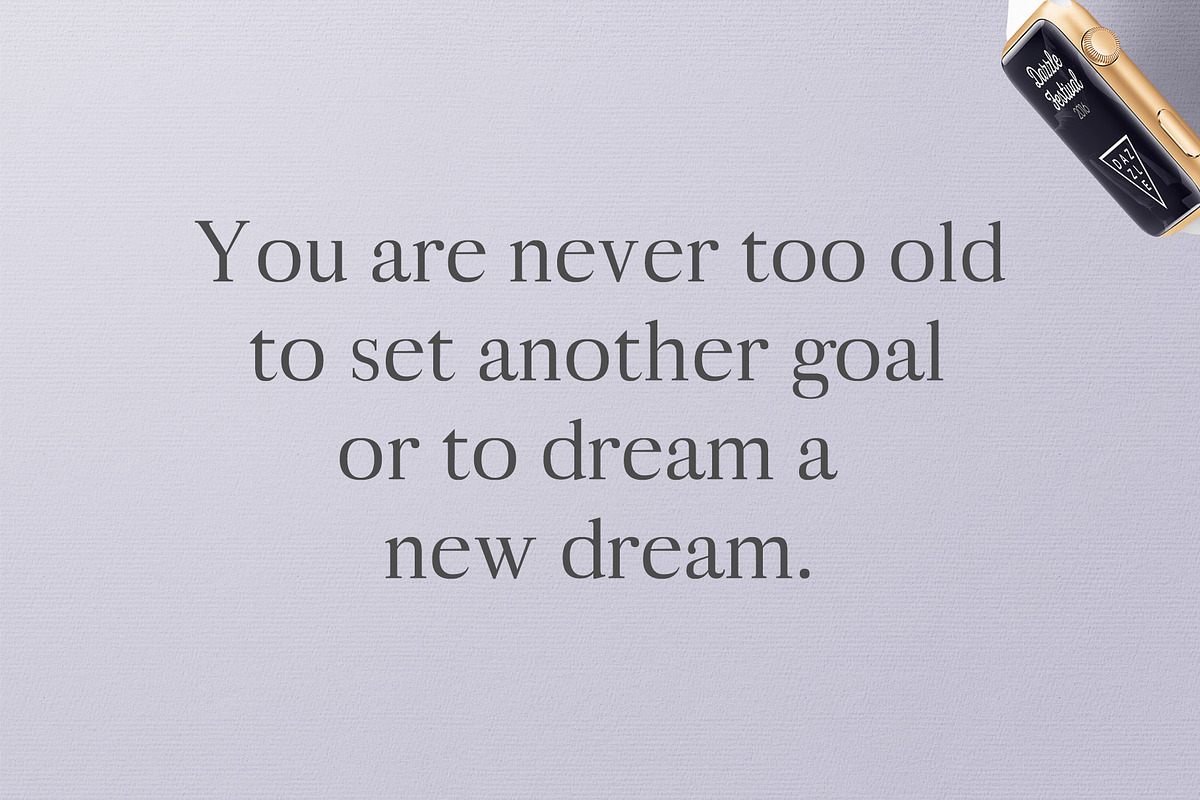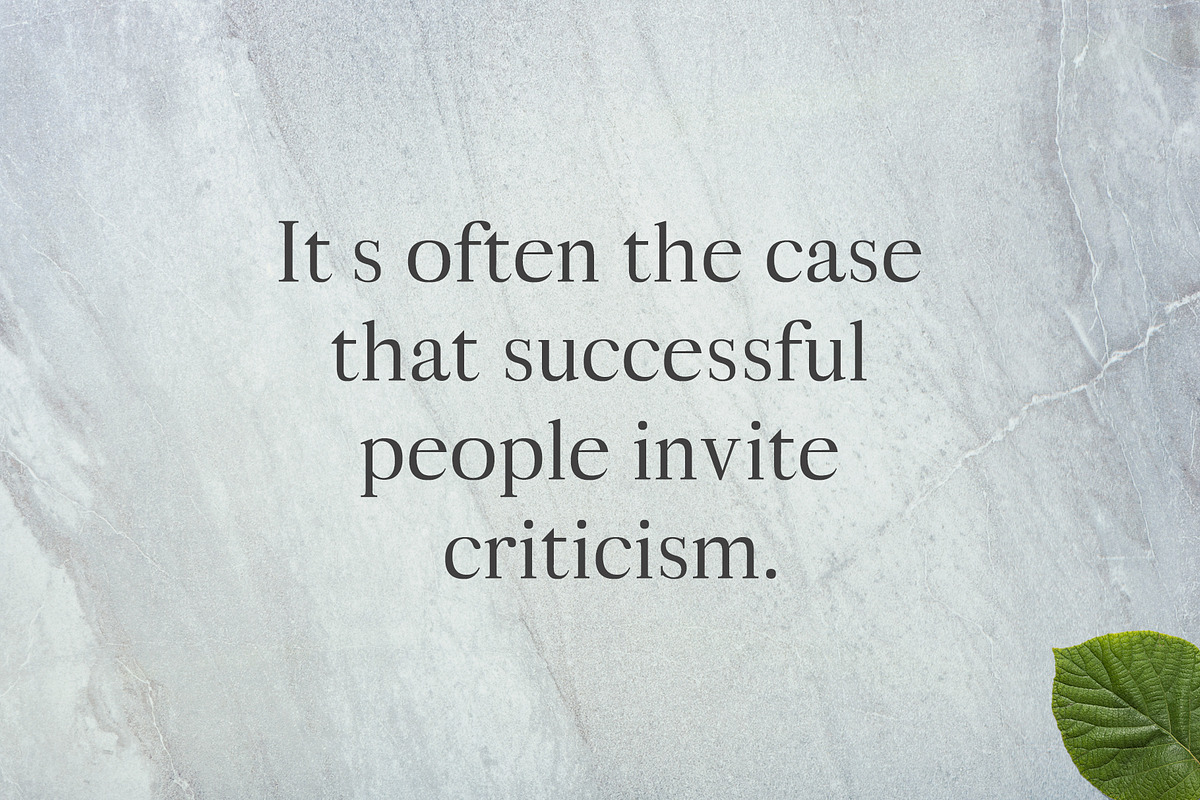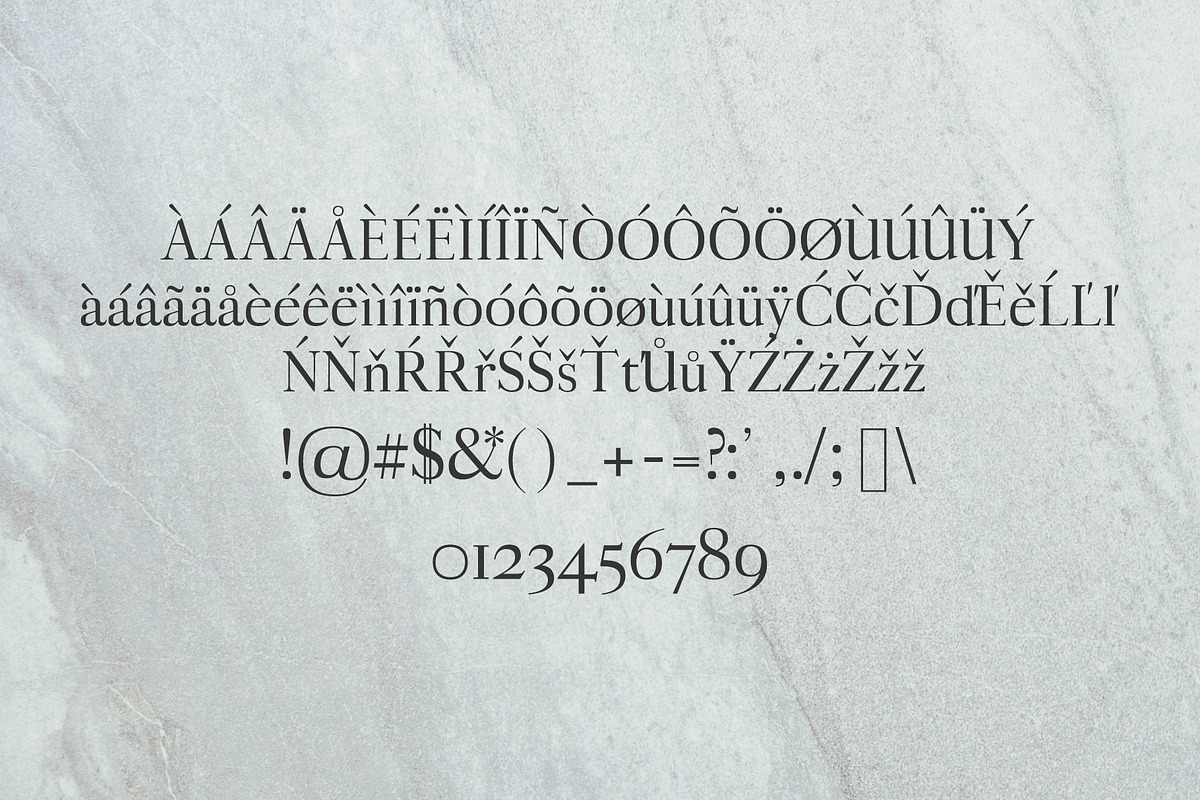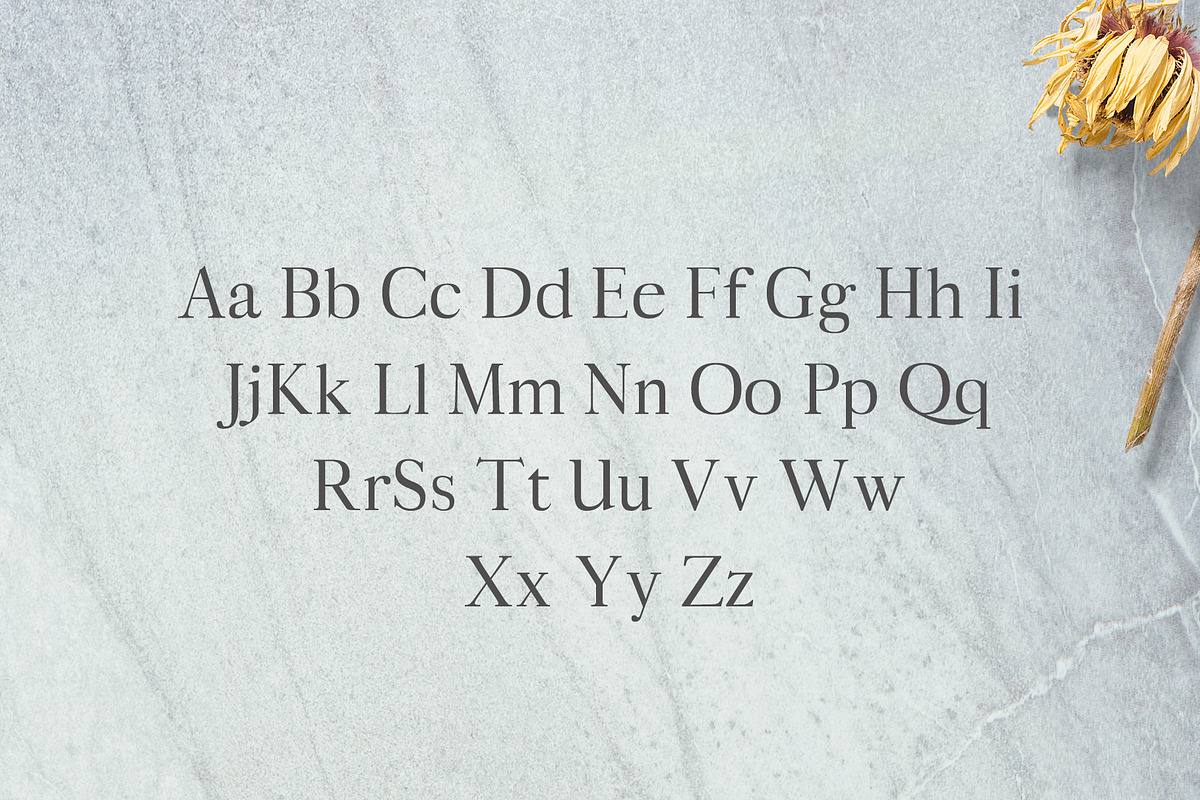
Aludra Serif 12 Font Family Pack
Aludra Serif 12 Font Family Pack by Creativetacos is a font selected for branding, posters, packaging, typography.
- Aludra family contains 11 weights, from Light to Bold.
- Uppercase Multilingual Letters
- Lowercase Multilingual Letters
- Numbers & Punctuation
- Non English Characters ( Latin Supplement + Latin Extended A)
Aludra Serif 12 Font Family Pack by Creativetacos fits naturally into Branding, posters, packaging, typography.